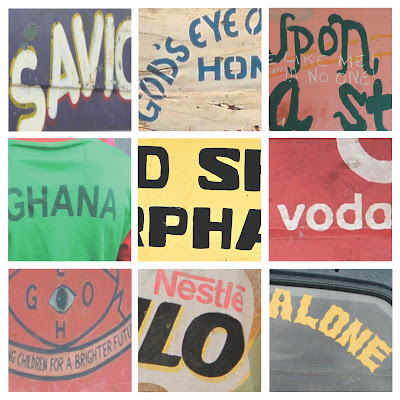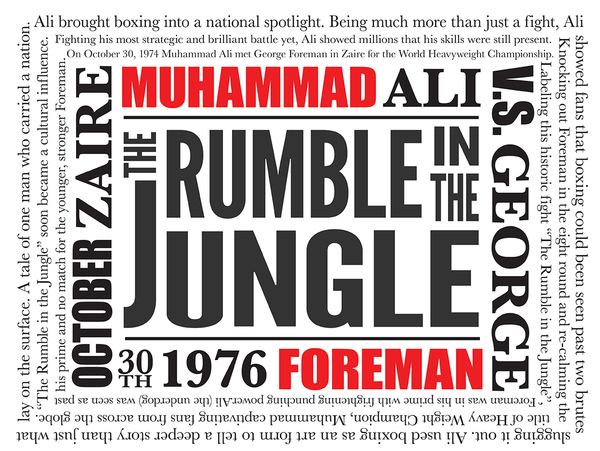
Like the neighborhood of West Ridge, my found type grid represents a variety of cultures coming together and thriving.
1. Looking into the history of written words is interesting to me when I think of how people were really doing it "by hand" in the most authentic sense of the term. Rather than outlining the rules behind a typeface, a person would just make the damn characters! Knowing this, I always find the consistency of pre-printing press documents amazing. I just took the printmaking course Mark Z teaches last quarter, so now that I know how much of a pain it is to actually print things, my appreciation for classic technique is much greater.
When the chapter arrived at the 20th century advances in typography, I noticed a lot of examples pertaining to the German language, which is kind of fun because that's the only other language I can pretend to know.
3. Compared to chapter one, chapter three is entirely new information for me to absorb! Just as when we learned character anatomy, I think it's critical to have names for specific elements we refer to beyond "that part right there", so syntax is something I can appreciate. I found the main ideas in this chapter were basically relating to spatial relationships, so all the examples they illustrate are super helpful.
6. It was kind of hard to get used to the idea of type having as much power as the very idea that is being expressed through written language. Ideas, and the type that represents them, are really mostly powerful due to the associations we make in our individual brains. Designers have to sort of anticipate the associations their creations will cause in the audience members. I saw a lot of language in this chapter that reminded me of considerations other artists take in their studio practices, like reductionism and expressionism.
7. As I mentioned earlier, I was fortunate enough to take Printmaking I with Mark last quarter, which is how I learned that printmaking is not really for me. I have a hard time planning anything, so the less-impulsive style of making art through a specific process sometimes is hard for me to feel at home with. Looking through the industrial printers of chapter seven sort of confirmed this for me. Beyond the functional illustrations at the top of the page, I was pretty lost when the methods of production for different presses were discussed. Although it is still definitely possible for me to romanticize the print shop life, I am incredibly grateful that I have access to digital means of creating the visuals I want (at this point). Although I am a PC....and I noticed many apple computers in the pictures towards the end of the chapter!
This chapter focused on the history and evolution of text as we know it today. This chapter created a time line with many images that provided sufficient supplementary information. It is fascinating to look at where type came from and where it has ended up. It's funny to look at how far type has come and what our needs from type have turned into. Originally it was just a thing used to communicate efficiently between people and now it has turned into a real art form.
It doesn’t matter how amazing the thing is to look at; without a clear message,
It’s an empty although beautiful, shell”. This rule presents a perfect sum-up
of chapter 6 of Typographic Design: Form
and Communication. The image below shows a great example of what this
chapter talks about, the typography in the composition should be clear and well
formed to get the message across effectively and without making the viewer
confused.